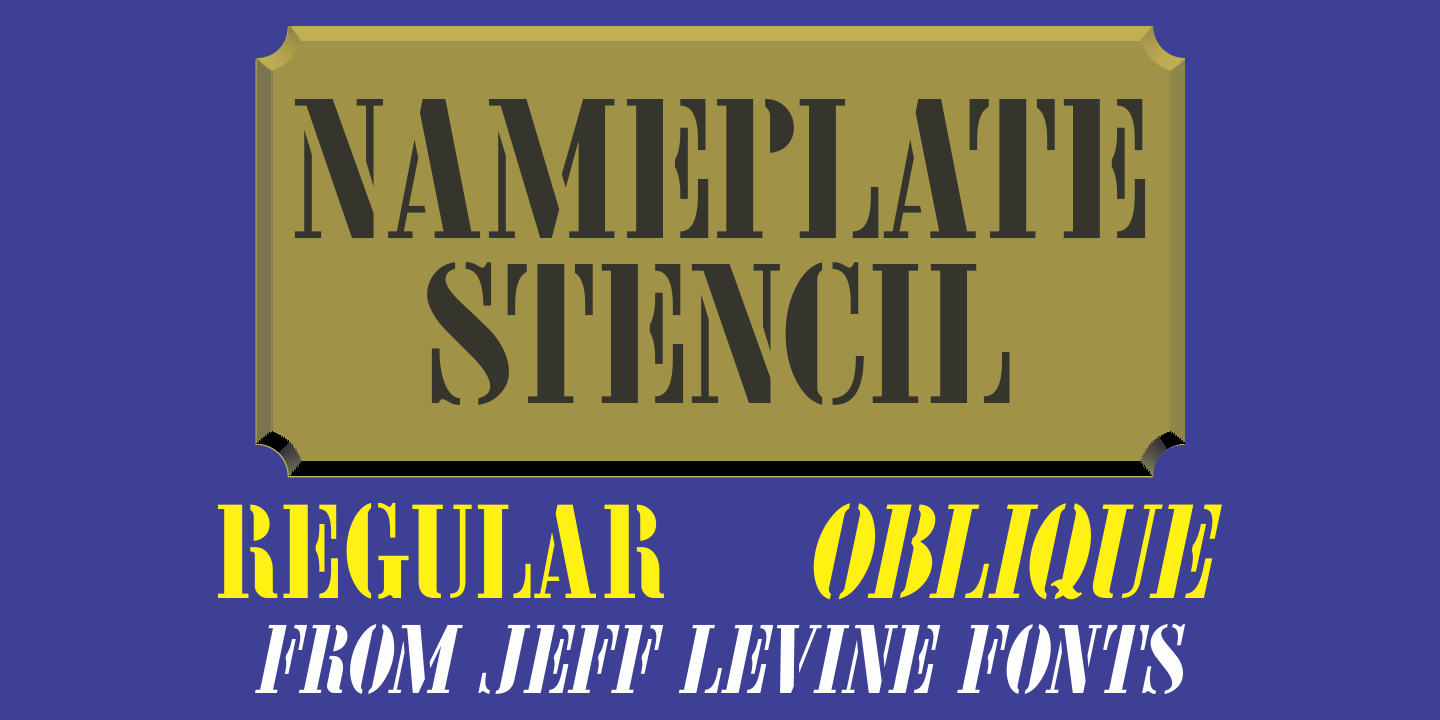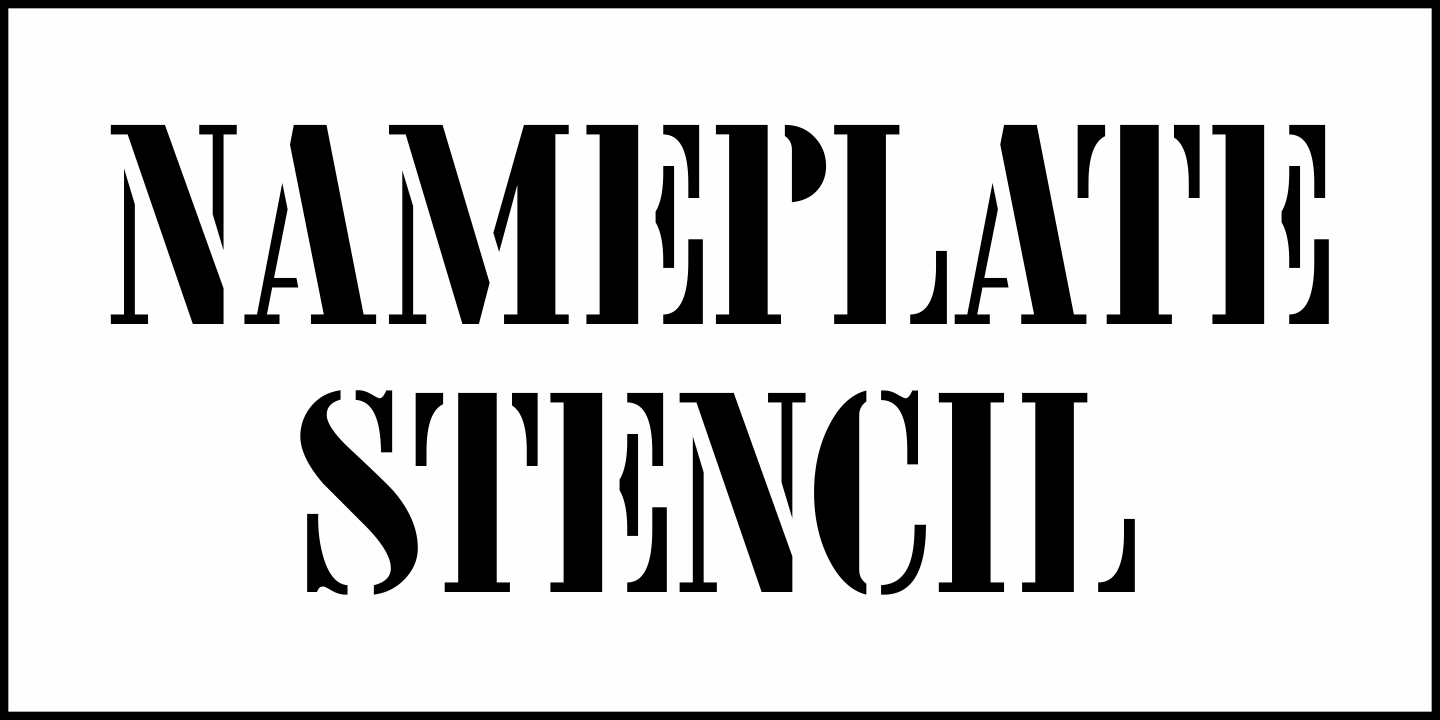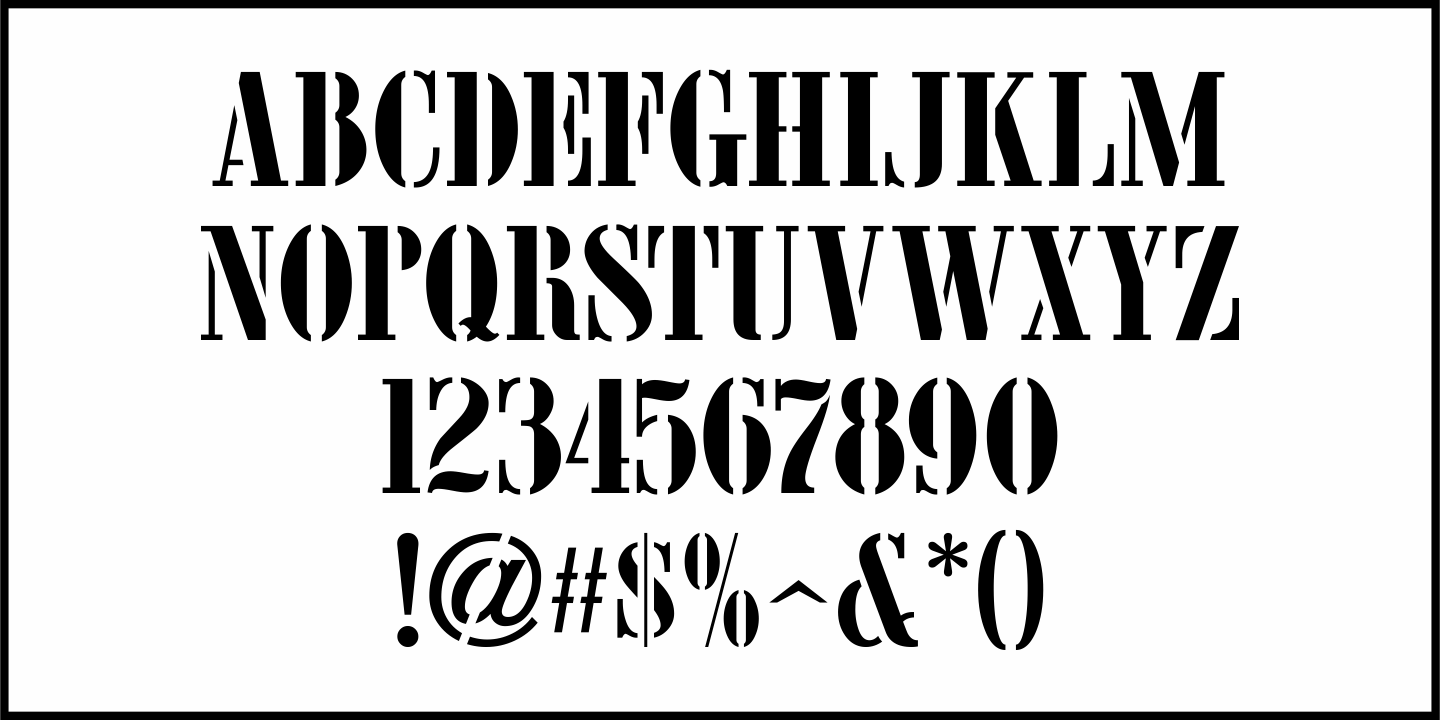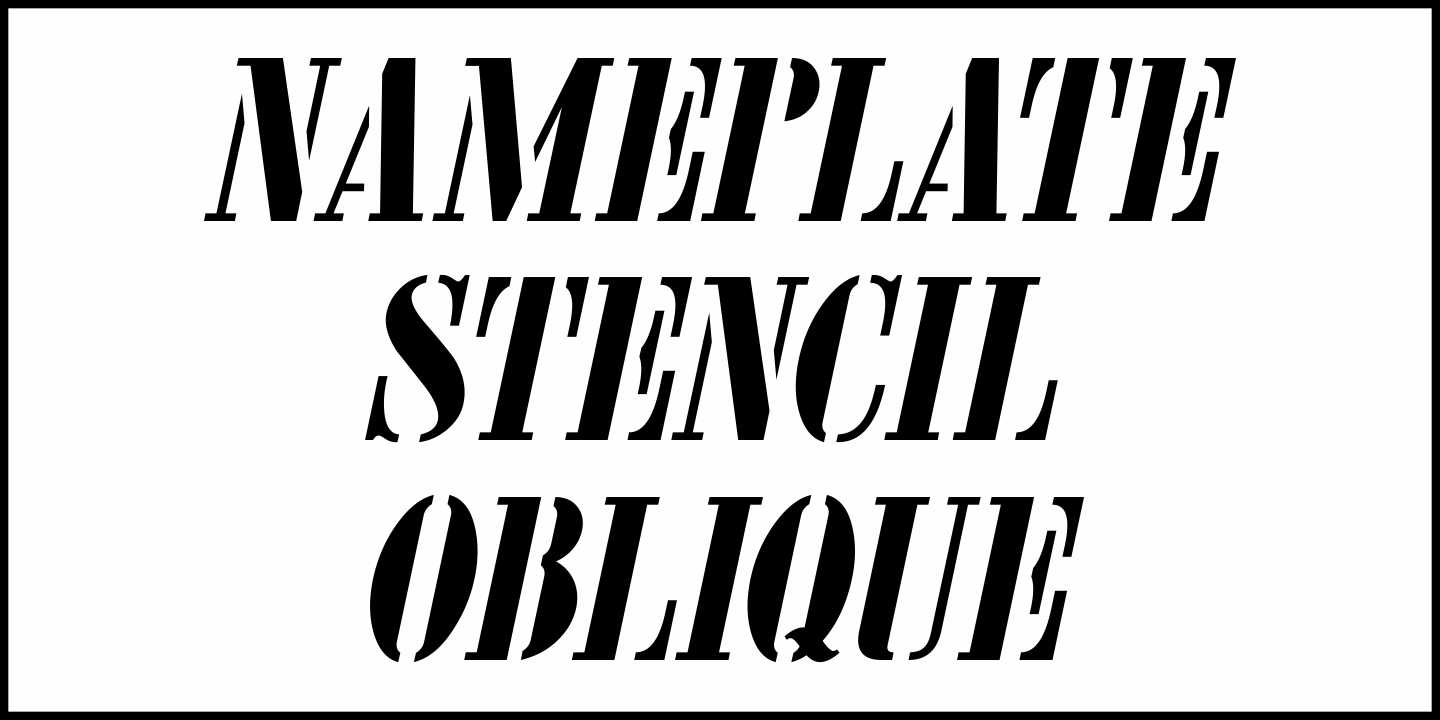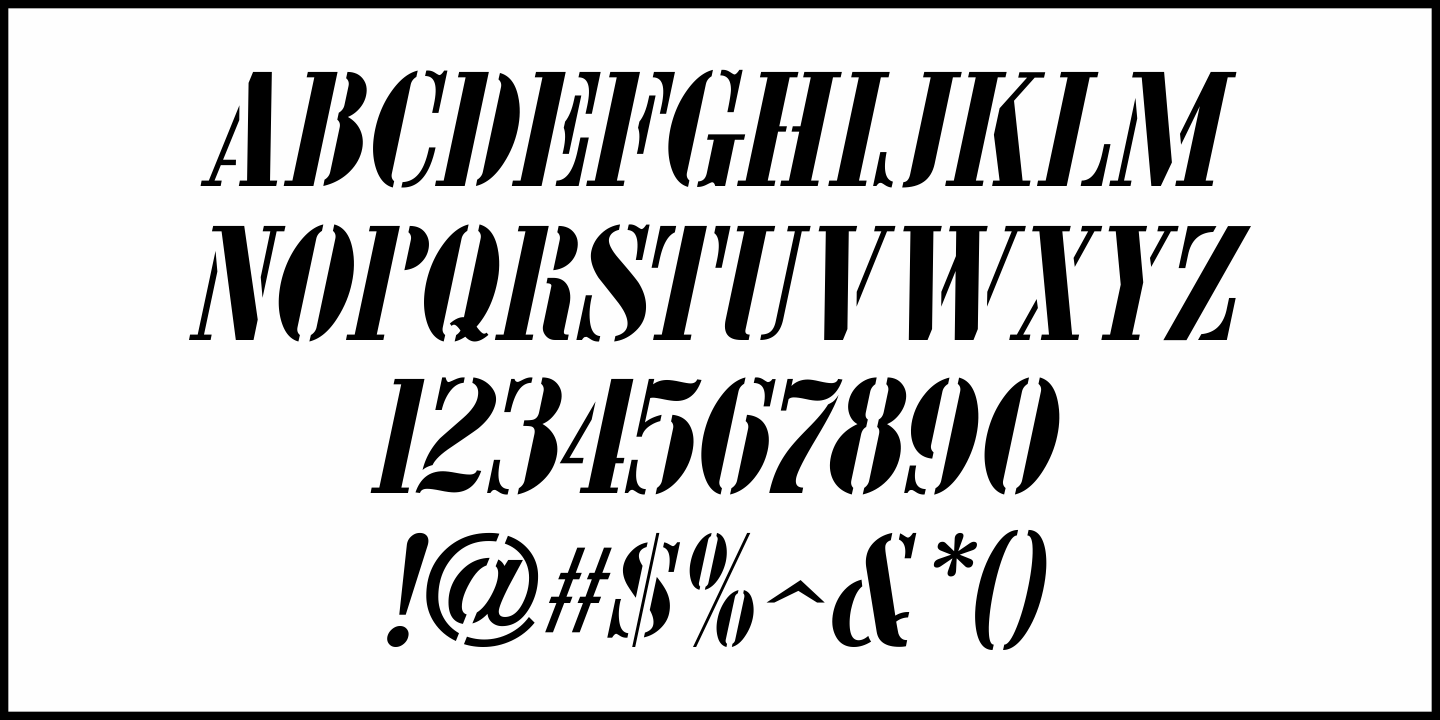
Nameplate Stencil
A vintage brass stencil for an individual or company named ‘Rodrigues’ was spotted in an online auction.
The hand punched, condensed Roman lettering inspired the digital typeface Nameplate Stencil JNL, which is available in both regular and oblique versions.